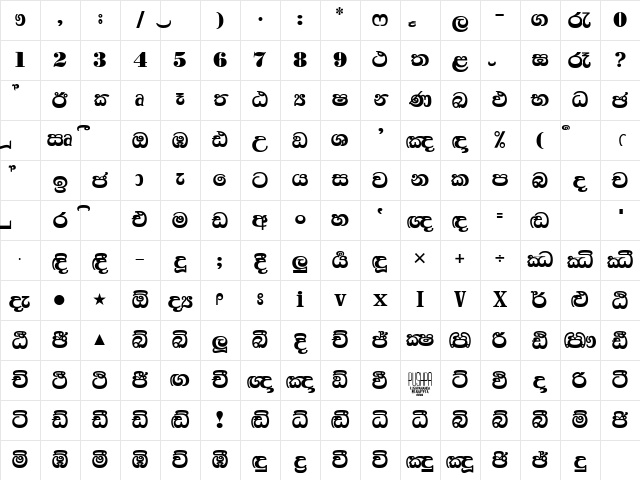
FMSamantha x
Copyright: Pushpananda Ekanayaka 1998
FMSamantha Family
Design Context for FMSamantha
FMSamantha is a composed and adaptable typeface that performs quietly and consistently across a wide range of design contexts.